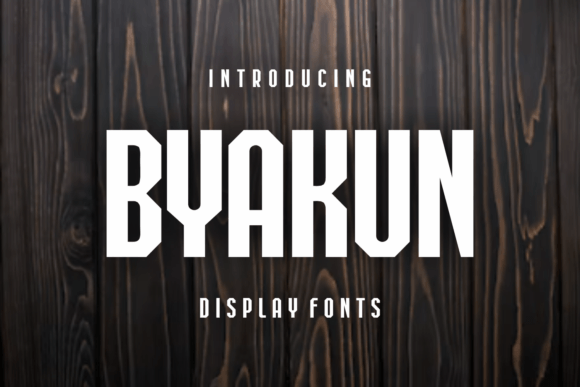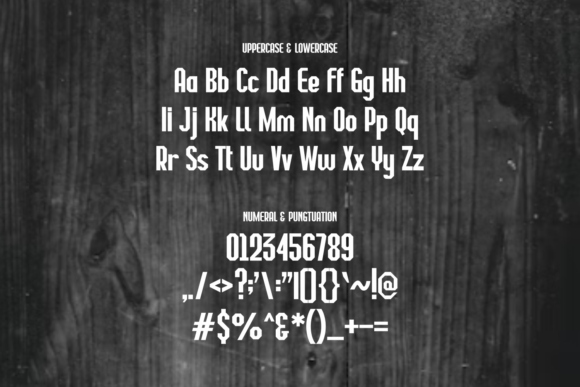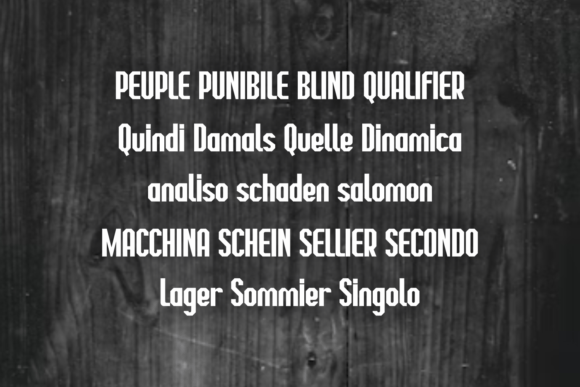
Introduction to Byakun Font
Byakun is a cool and modern display font.
Key Features of Byakun Font
Why Choose Byakun Font?
Byakun Font offers exceptional quality and versatility, making it a valuable addition to your design toolkit. Whether you’re creating for personal projects or commercial use, Byakun Font delivers professional results.